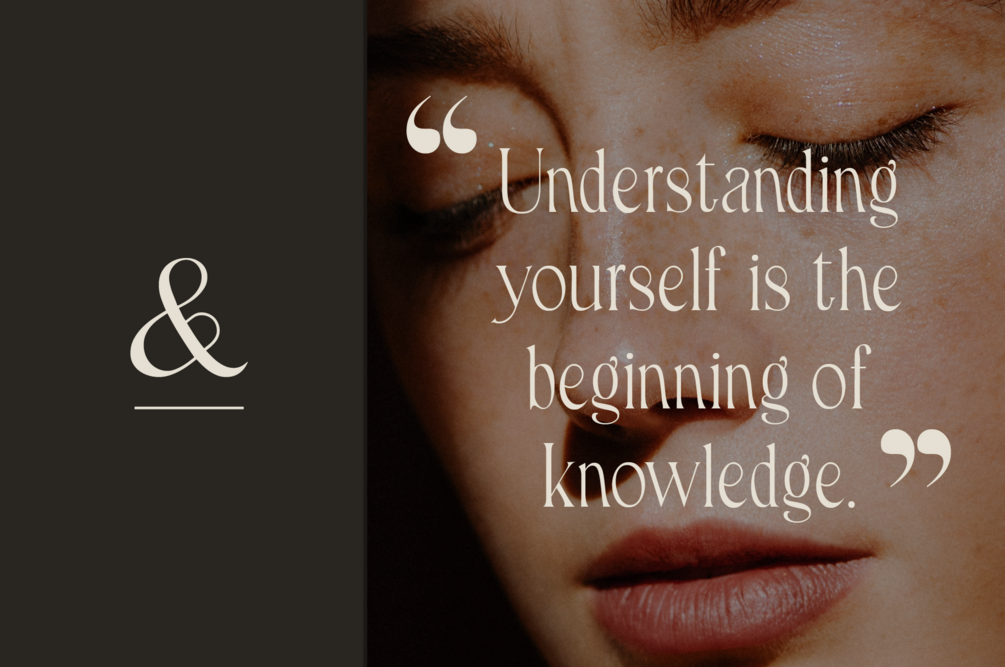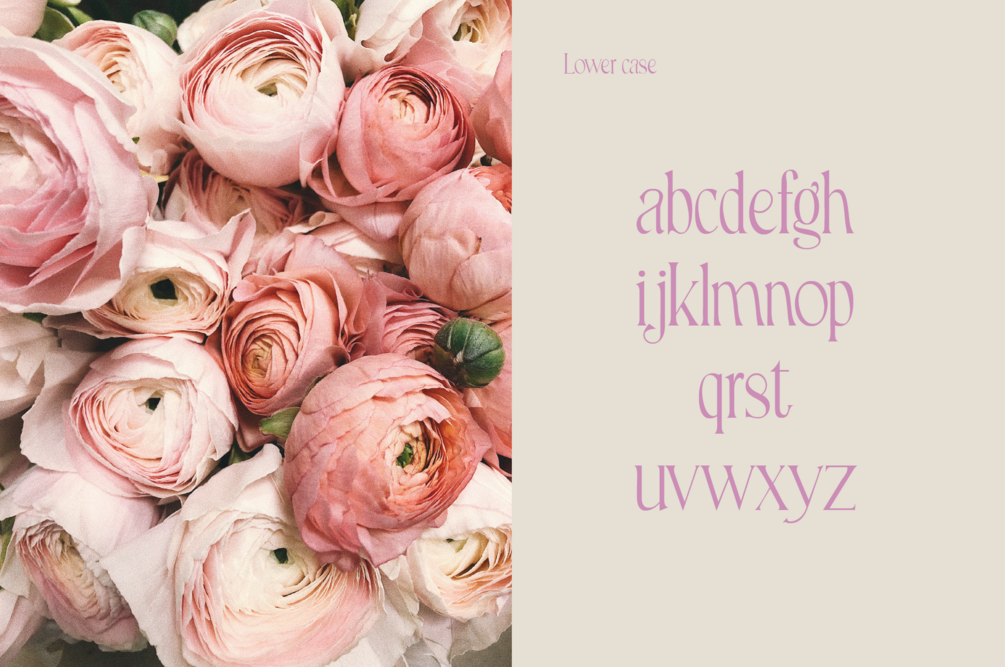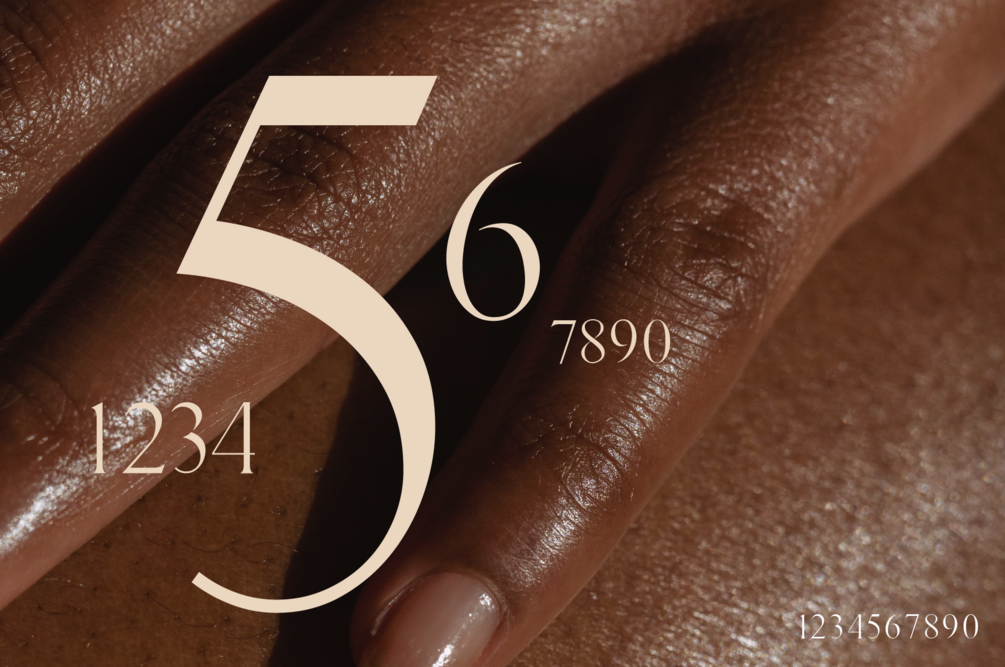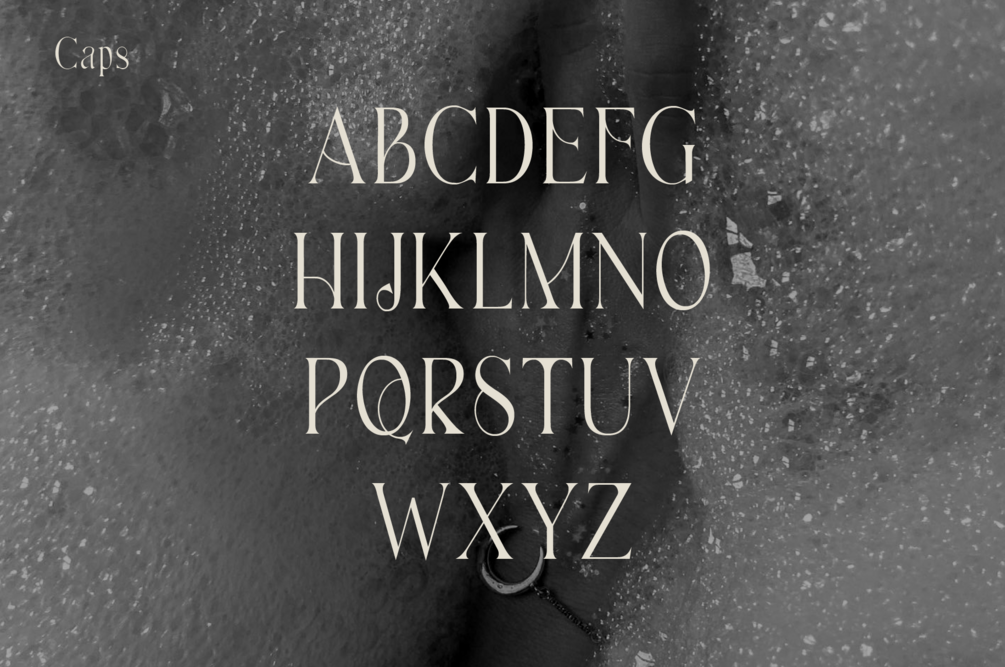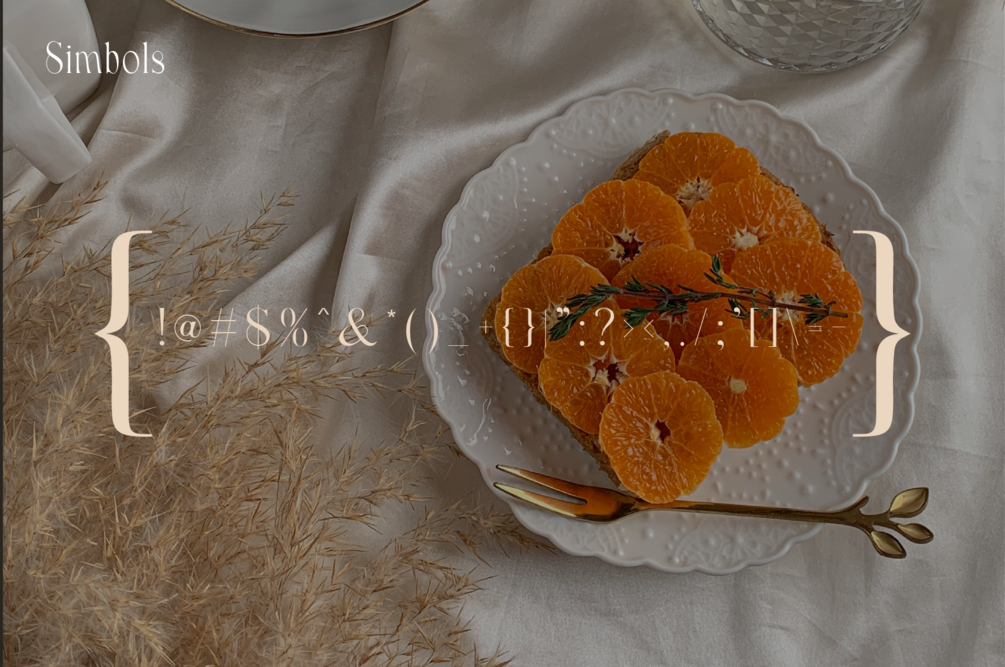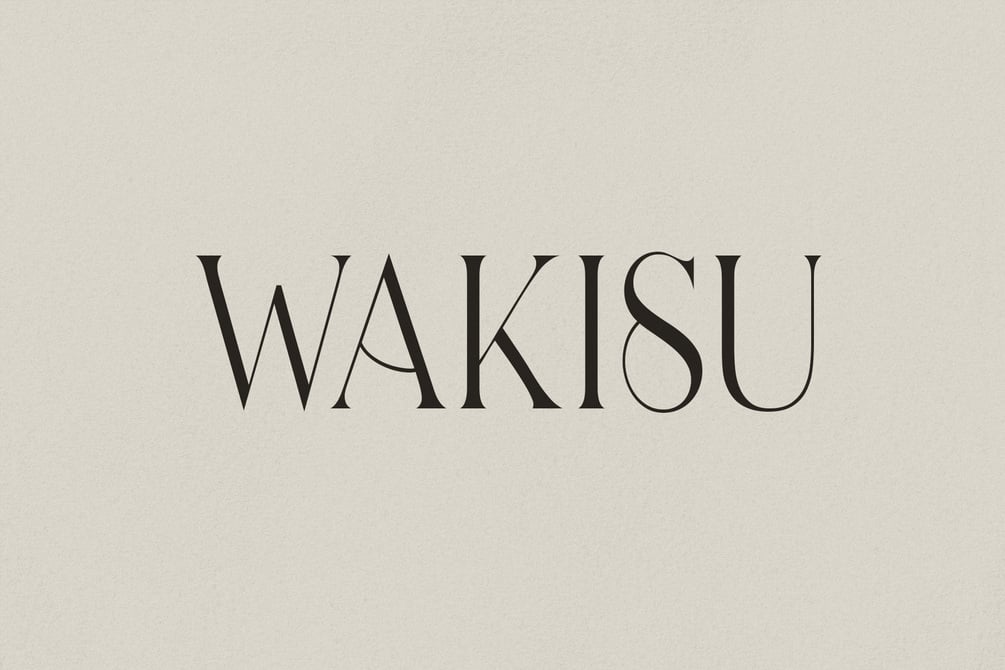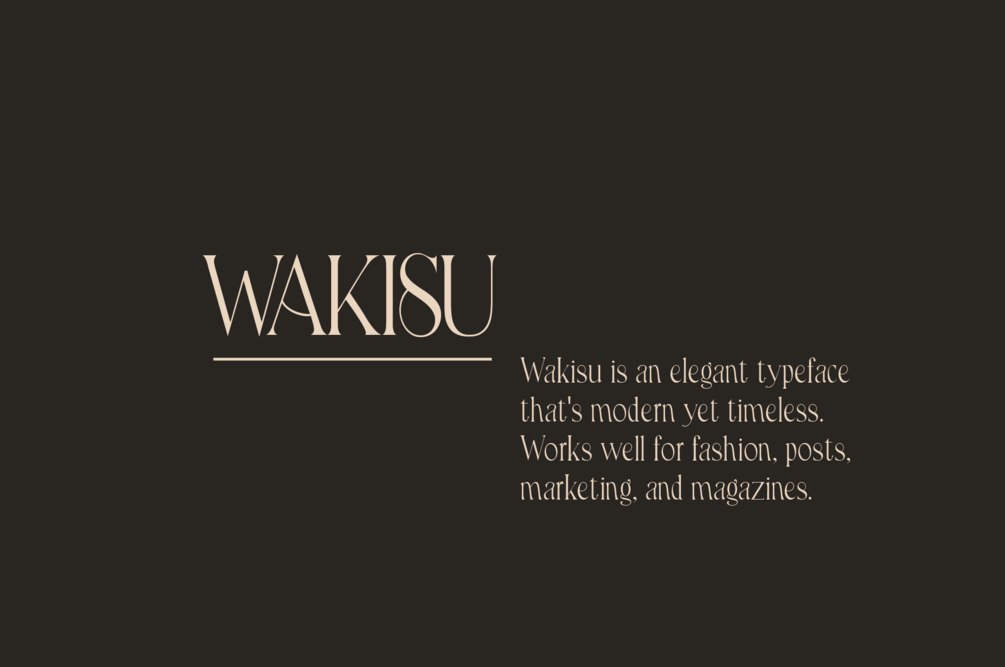
Wakisu - Elegant Sans-Serif
Wakisu was specifically made for the needs of elegant brands. A typeface that demands attention in a serious yet classy manor. Suitable for creating elegant, chic, lifestyle designs such as logos, titles, magazines, packaging, stationary, and more. Add value to your brand with Wakisu.